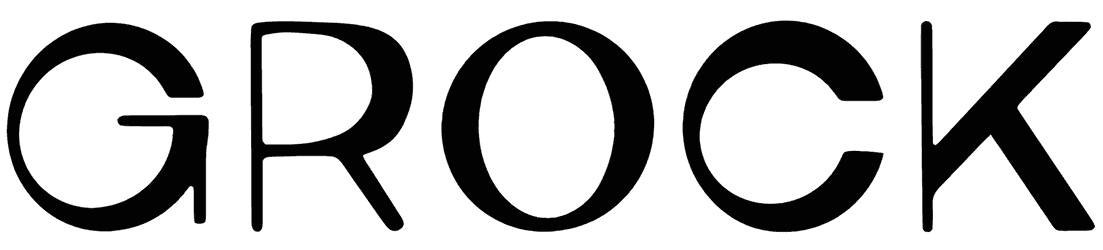
Grock Font
It goes well that we come up with an engaging series of sans serif font, sure thing your posters design, or any graphics illustrations get the elegant detailed by using the Grock font. Achieve the faces of modernity and minimalism that never existed through simply downloading this fancy font from our rich website.